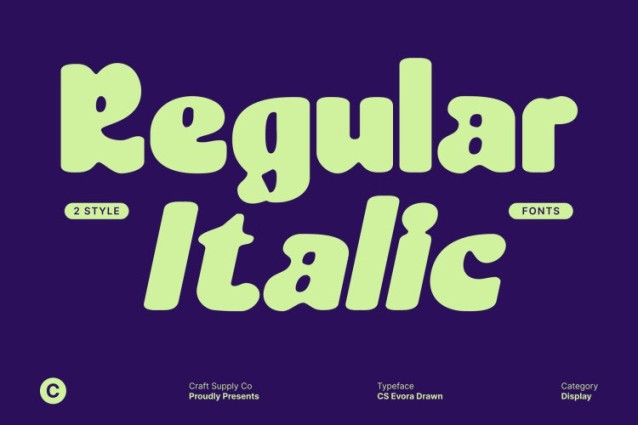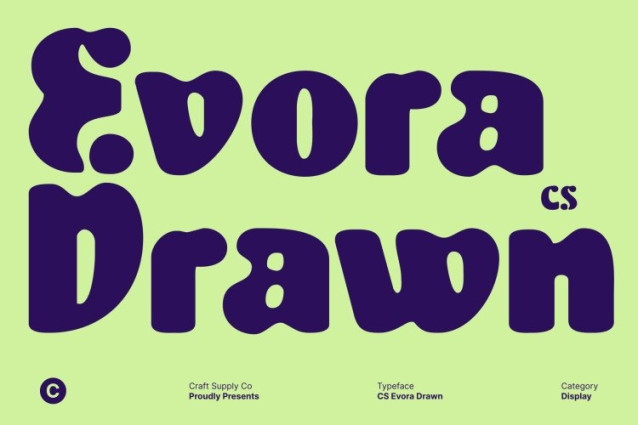
CS Evora Drawn Font
CS Evora Drawn Font This is a modern display font that blends bold clarity with refined sophistication, enhanced by a subtle hand-drawn texture. Its confident letterforms create strong visual impact, while the drawn details add warmth and character, resulting in typography that feels powerful yet expressive.
Refined Structure with Artistic Nuance
Designed with clean lines, balanced proportions, and stylish curves, this font feels both modern and luxurious. The bold weight brings authority and presence, while the handcrafted texture softens the form, giving the font a natural, artistic quality without compromising its polished appearance.
Perfect for Premium and Creative Projects
This font excels in fashion editorials, luxury branding, upscale packaging, modern magazines, and creative campaigns. Its ability to balance elegance and strength makes it ideal for projects that want to appear high-end, contemporary, and visually distinctive across print and digital media.
Confidence with Timeless Style
Whether used for logos, headlines, or promotional visuals, this font delivers a statement of confidence and class. It’s a versatile display font for designers seeking bold typography with a refined, handcrafted edge modern, stylish, and unforgettable.